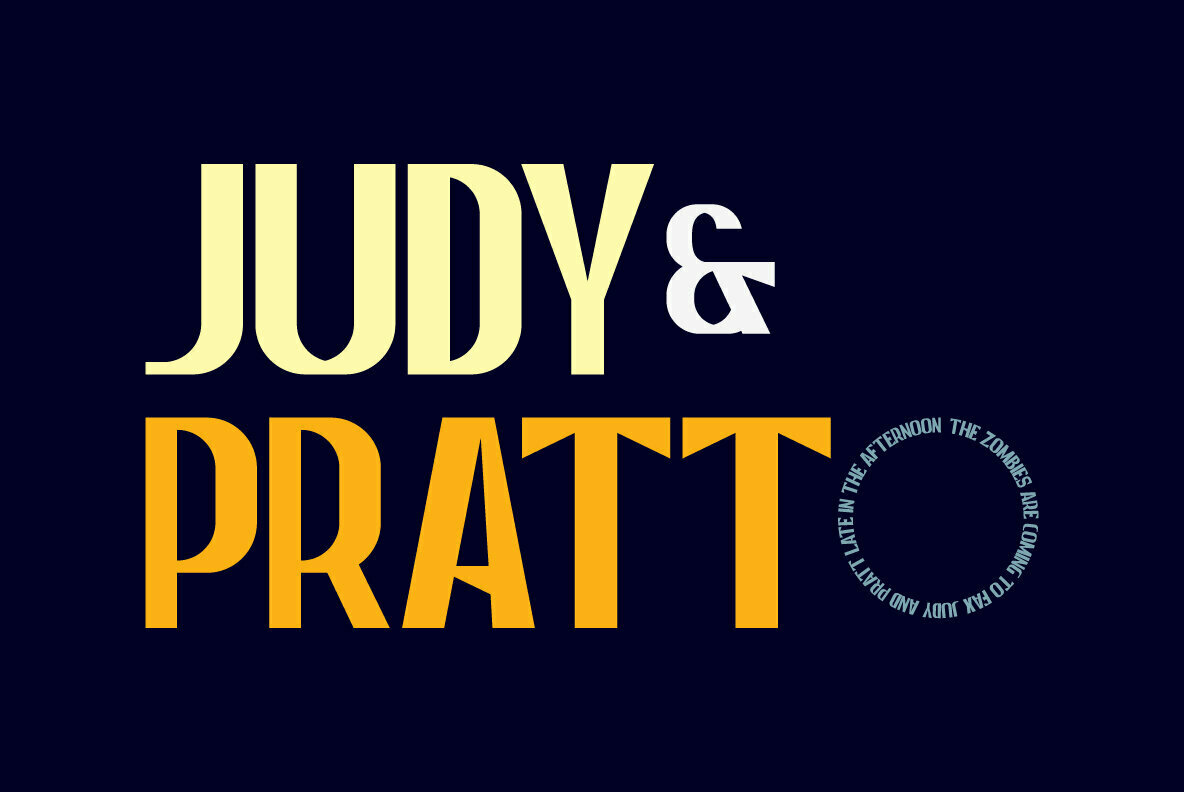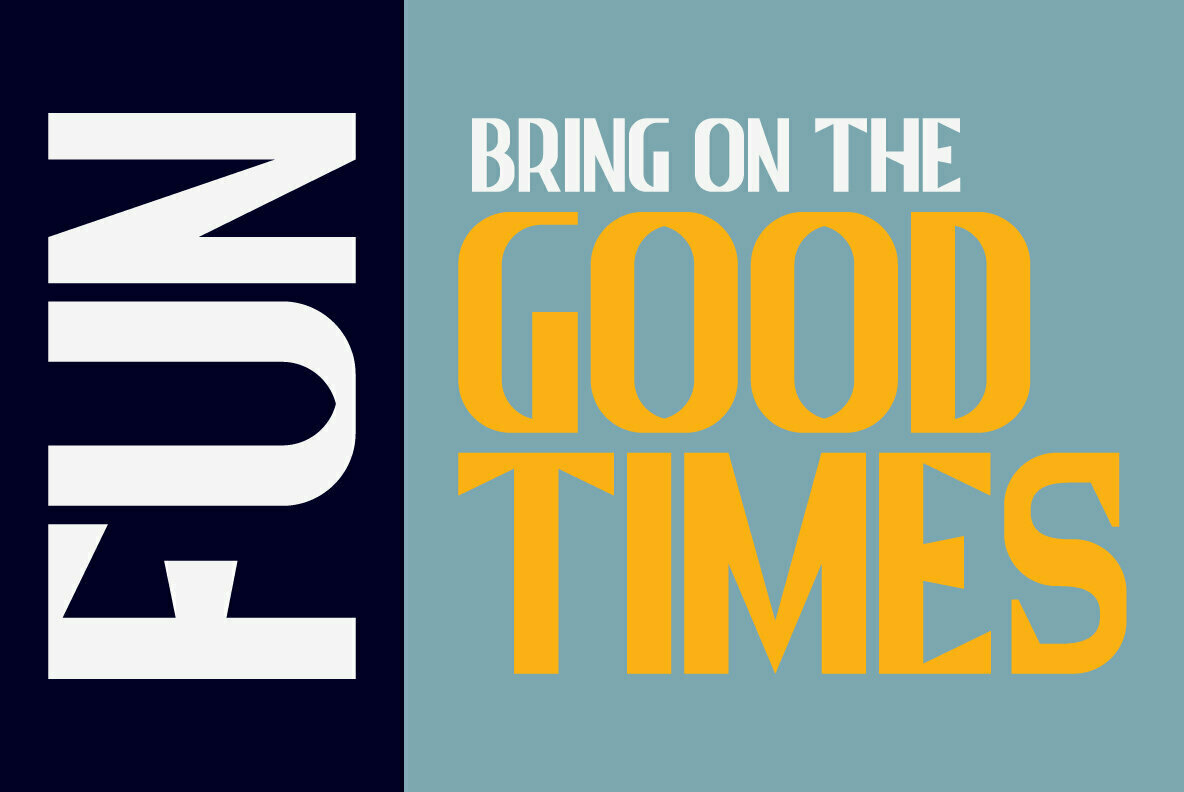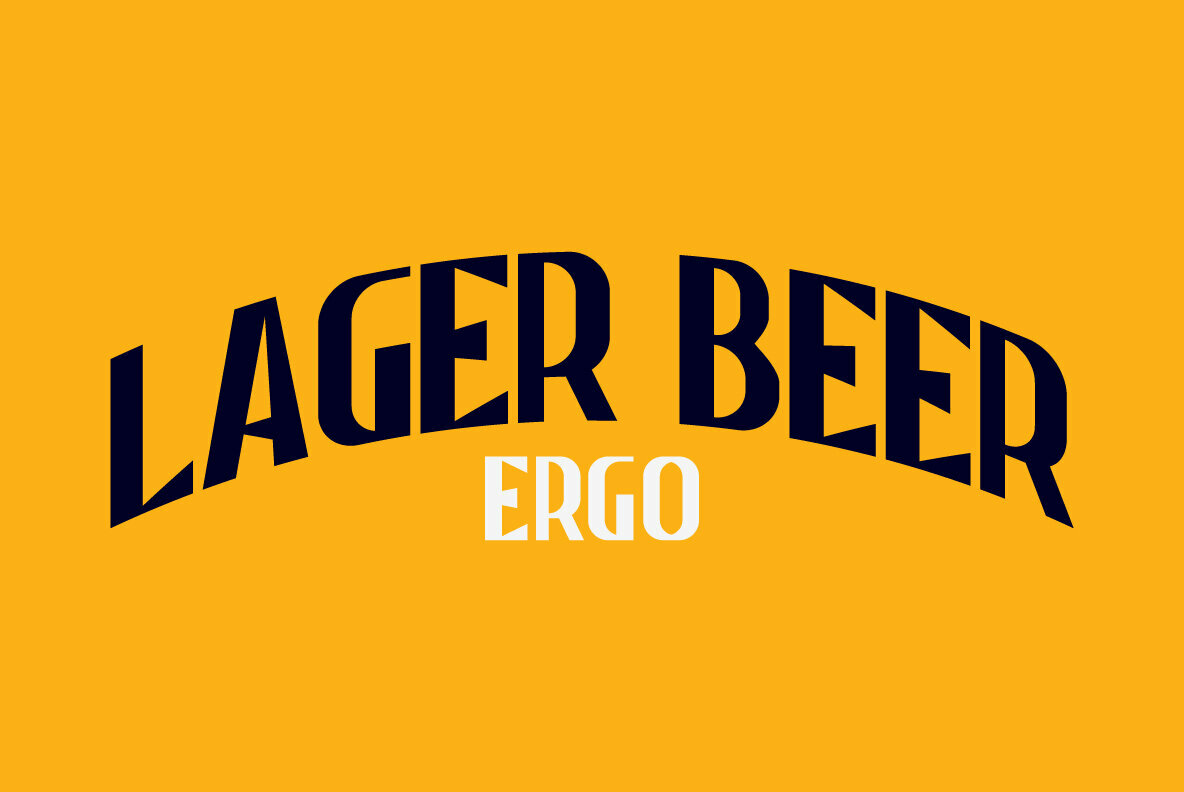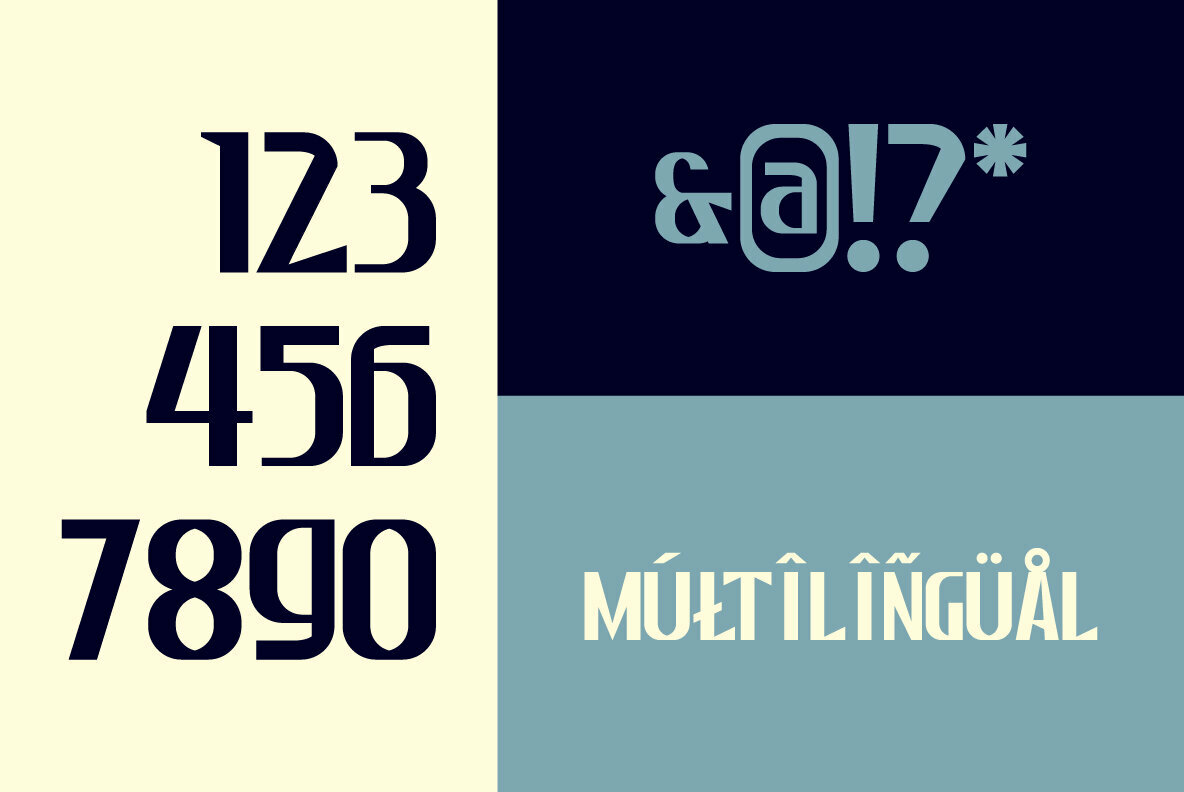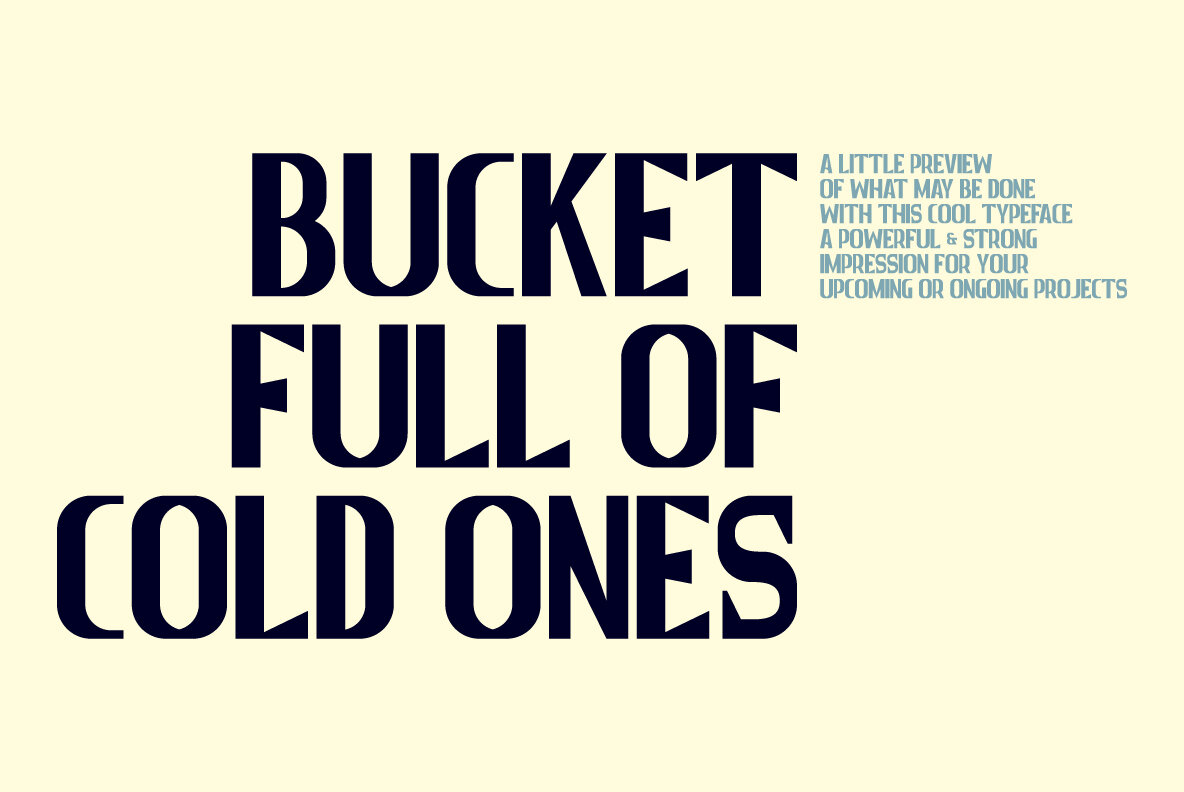
MBF Ergo Font
MBF Ergo
MBF Ergo is a distinguished all-caps typeface that combines boldness with a touch of vintage elegance. Its tall stature and resolute form make it ideal for dynamic branding tasks. Whether crafting an impactful logo or a commanding headline, this typeface provides the robust versatility necessary for various design applications.MBF Ergo: Bold Grotesque Typeface With Vintage Charm